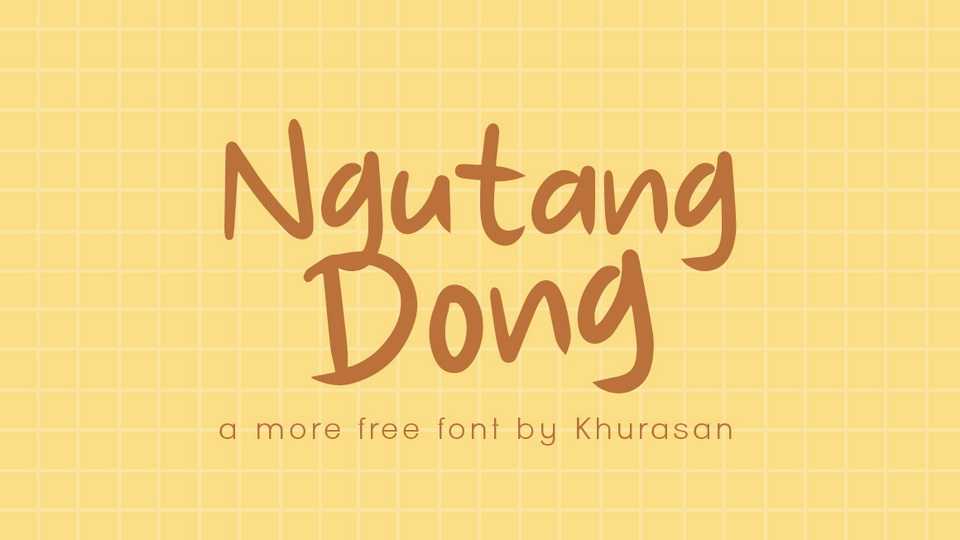
Download Ngutang Dong font, a simple handwritten typeface with bouncy letters. Ngutang Dong is perfect for posters, logos, magazines, book covers, banners, and many more.